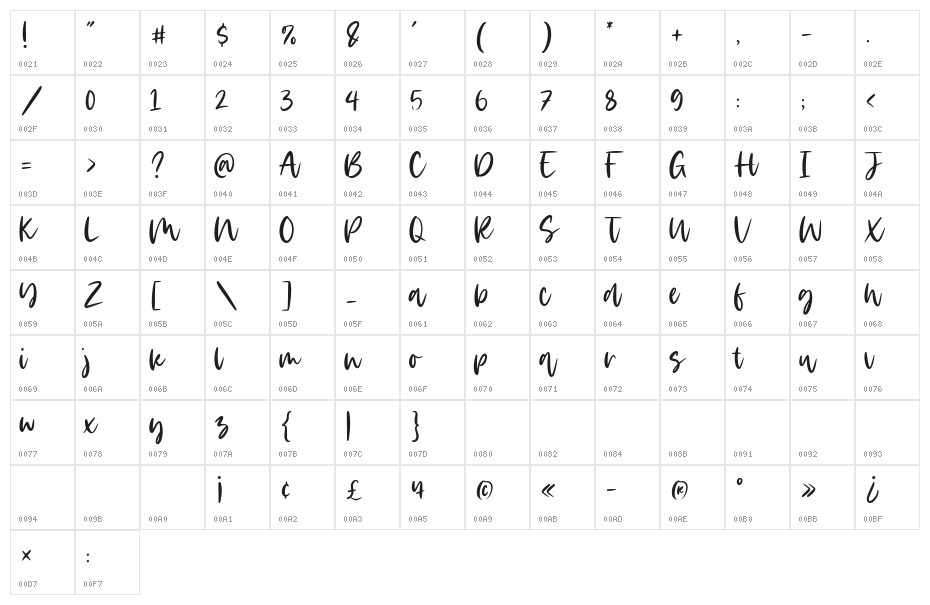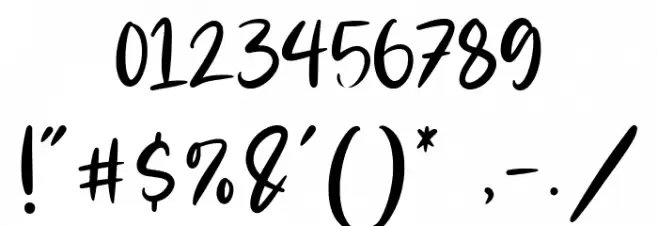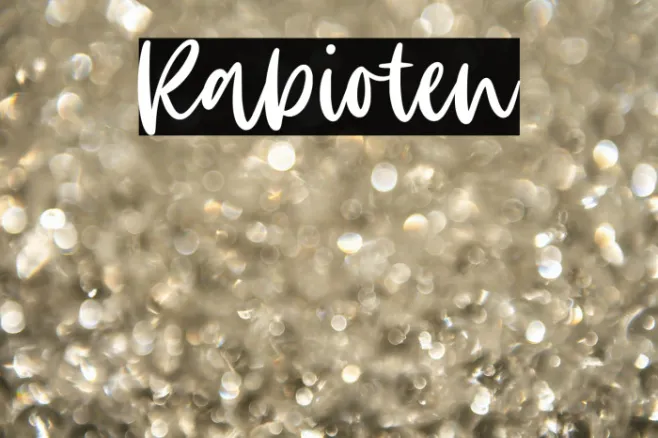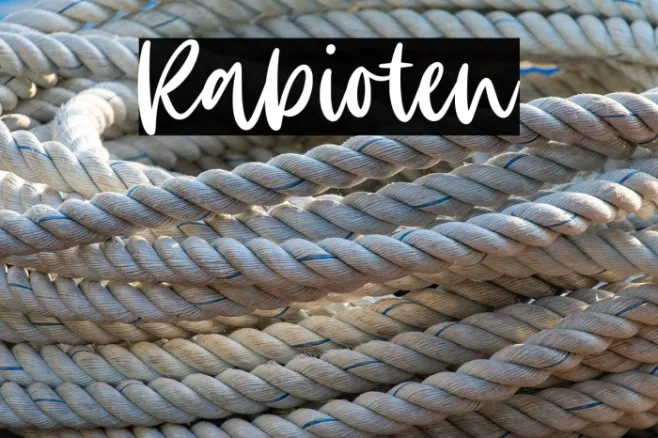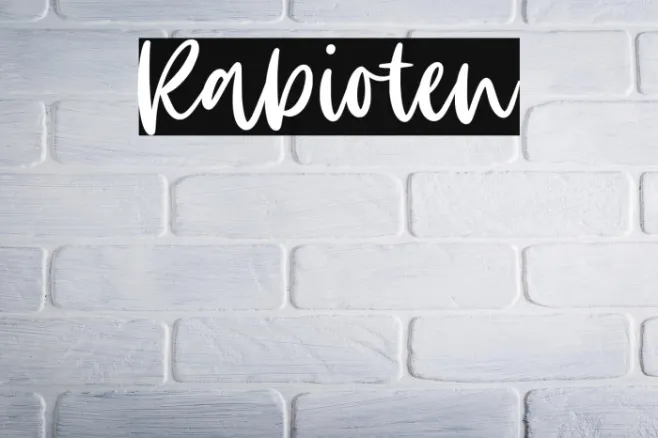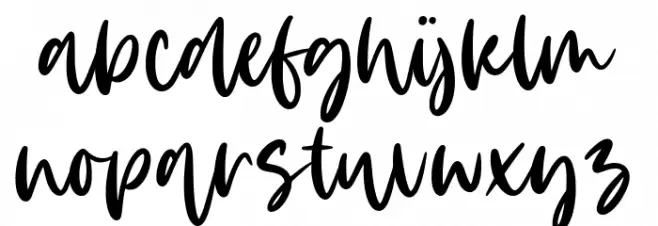
Rabioten Font
Rabioten Description
This font exudes a lively and expressive handwritten style, characterized by its fluid and dynamic strokes. The uppercase letters are bold and confident, while the lowercase letters maintain a playful and approachable demeanor. The numerals and special characters are consistent with the overall energetic theme, making them suitable for creative and informal designs. The font's natural flow and slight slant give it a personal touch, reminiscent of casual handwriting.
| Use Case | Logos, Headlines, Invitations |
| Proposed Projects | Ideal for greeting cards, invitations, personal branding, and creative projects that require a personal touch. |